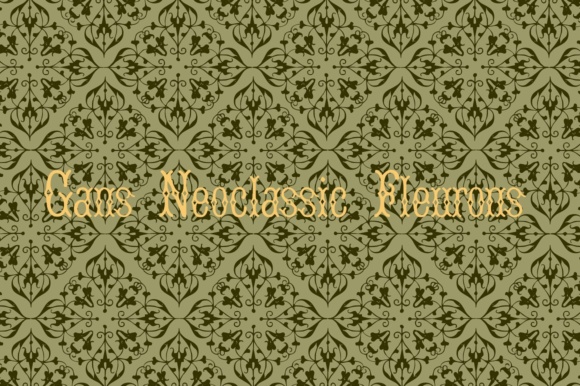
Gans Neoclassic Fleurons Font
Prepare to step into a world of typographic elegance with Gans Neoclassic Fleurons, an extraordinary dingbat font family that embodies the essence of timeless artistry and meticulous craftsmanship. Inspired by the exquisite decorative elements found in historical printing, these fonts are a true testament to the enduring power of design.
Each intricate glyph in the Gans Neoclassic Fleurons collection is a testament to the painstaking research conducted by Intellecta Design, who meticulously delved into the archives of Richard Gans's first catalog from 1882. These meticulously recreated ornaments transport you back to an era of typographic mastery, where every detail was carefully considered and executed with precision.
From the delicate flourishes of Fleuron1 to the bold elegance of Fleuron13, this font family offers a wealth of options to enhance your designs with a touch of sophistication and charm. Whether you're crafting invitations, designing brochures, or creating captivating social media graphics, Gans Neoclassic Fleurons empowers you to add a touch of timeless beauty to your work.
Embrace the allure of history and the allure of modern design with Gans Neoclassic Fleurons. Let these captivating fonts elevate your creations, capturing the attention of your audience and leaving a lasting impression.
Unlock the endless possibilities of typographic expression with Gans Neoclassic Fleurons, a font family that seamlessly blends the past and the present, the classic and the contemporary. Experience the joy of creating designs that exude elegance, charm, and timeless appeal.